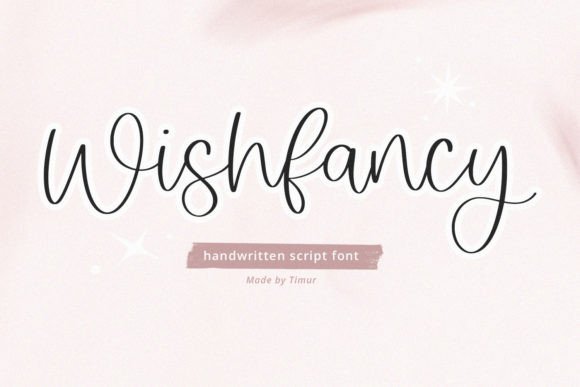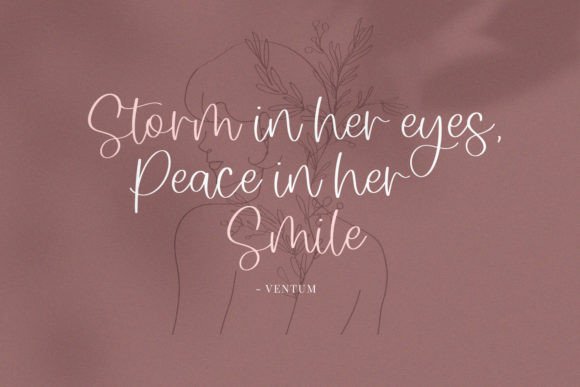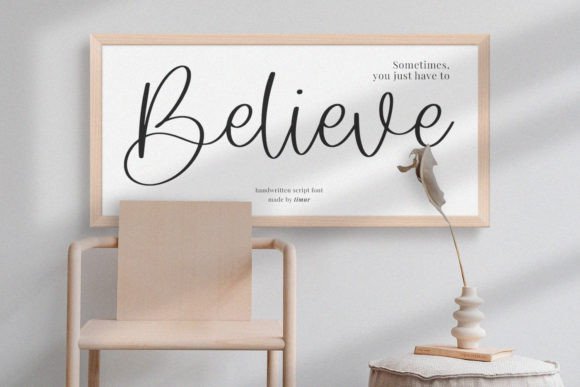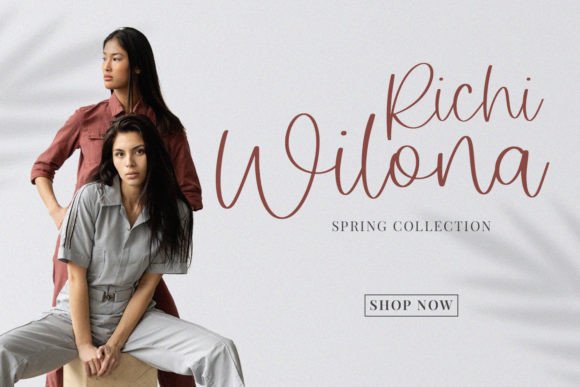
Wishfancy Font Download – Charming Elegant Handwritten Script
The Wishfancy Font download is a delightful handwritten script that combines elegance with charm. With its graceful strokes and stylish flow, this typeface is a perfect addition to both personal and professional projects. Because of its timeless beauty, it is especially suited for stationery, invitations, and branding materials.
Charming and Elegant Handwritten Style
Wishfancy features smooth curves and balanced letters that give text a warm, elegant appearance. As a result, it adds sophistication to your work while maintaining a friendly, handwritten feel. In addition, its versatile style ensures it fits a wide range of designs.
From wedding invitations to thank-you notes, this font brings words to life with elegance. It adds a heartfelt touch that makes every message memorable. Therefore, it is a strong choice for stationery and event-related designs.
Wishfancy Font Download for Logos and Business Cards
The Wishfancy Font download is also excellent for logos, quotes, and business cards. Its graceful handwritten look helps brands appear approachable and professional at the same time.
Versatility Across Creative Projects
This font adapts seamlessly across both print and digital platforms. From posters and social media graphics to DIY crafts, Wishfancy adds style and readability to every format.
Readability and Professional Balance
While some handwritten fonts may look decorative but lose clarity, Wishfancy maintains balance. As a result, it is effective for large titles, branding projects, and detailed text.
Why Add This Script Typeface to Your Collection?
The Wishfancy Font download is versatile, stylish, and easy to use. In other words, it fits invitations, greeting cards, logos, and branding projects alike. Finally, it is a handwritten script that adds charm, sophistication, and originality to every design.